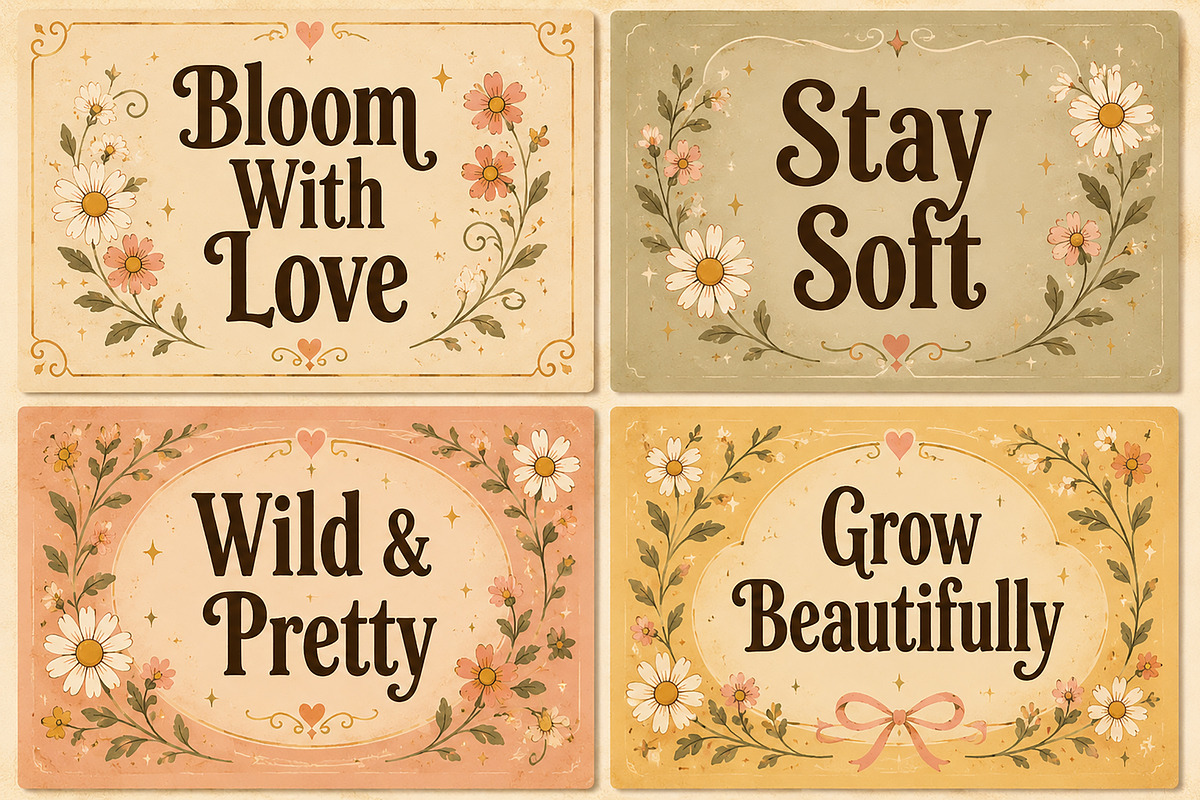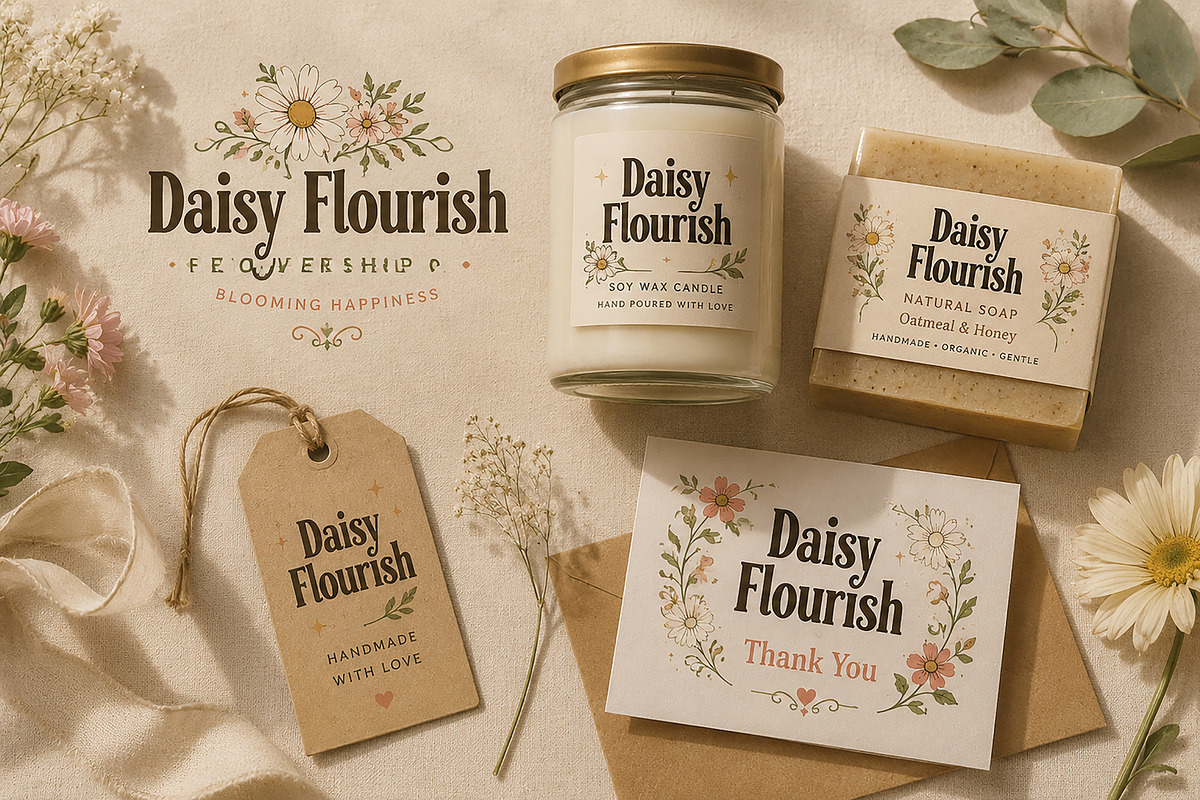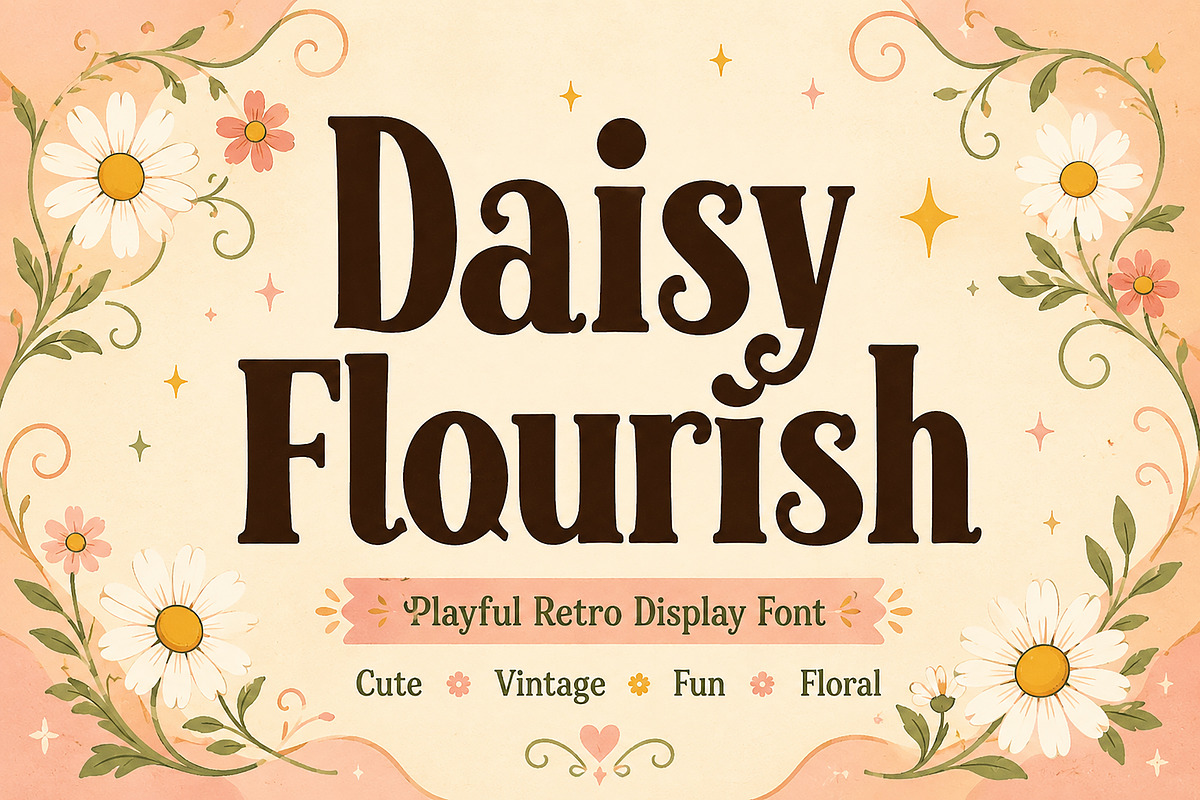
Daisy Flourish
Daisy Flourish Playful Retro Display Font
Daisy Flourish is a playful retro display font with a charming floral-inspired personality. Designed with bold curves, soft vintage energy, and decorative details, this typeface brings warmth, joy, and creativity to every design. Perfect for branding, packaging, posters, greeting cards, social media graphics, kids products, and handmade business projects.
Its unique handcrafted feel makes it ideal for creating eye-catching titles and fun nostalgic designs. Whether you're working on floral branding, boutique logos, product packaging, or cute quote art, Daisy Flourish adds a whimsical and cheerful touch.
This font works beautifully for both personal and commercial projects and is especially great for feminine, vintage, cottagecore, and playful creative themes.